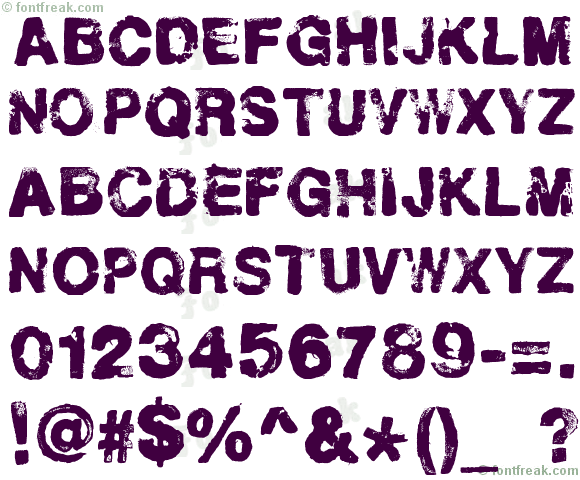
Helveticrap
About Helveticrap
The Helveticrap font, designed by Michael Tension in 2010, is a unique take on the classic sans-serif style, blending a modern aesthetic with an artistic flair. This font is characterized by its bold, heavy strokes and a distressed texture that gives it a gritty, urban feel. The uneven edges and rough finish contribute to its distinctive personality, making it stand out in a variety of applications. With a moderate contrast in stroke weight, Helveticrap balances legibility with an expressive style, ensuring that it captures attention without sacrificing clarity.
Ideal for creative projects, the Helveticrap font shines in contexts such as movie posters, where its bold presence can evoke strong emotions and grab viewers' attention. It also works well for restaurant menus, adding a quirky touch that can enhance the dining experience. Additionally, it can be used effectively in flyers or promotional materials for events, giving a fun and informal vibe. Small business owners can find it particularly appealing for branding, as it communicates a sense of originality and creativity that can attract customers.
What sets the Helveticrap font apart is its ability to combine an edgy, artistic style with practicality. It challenges conventional design norms while remaining functional, making it a perfect choice for those seeking to make a bold statement. For anyone interested in this standout typeface, a Helveticrap font free download is readily available, allowing users to explore its creative potential.